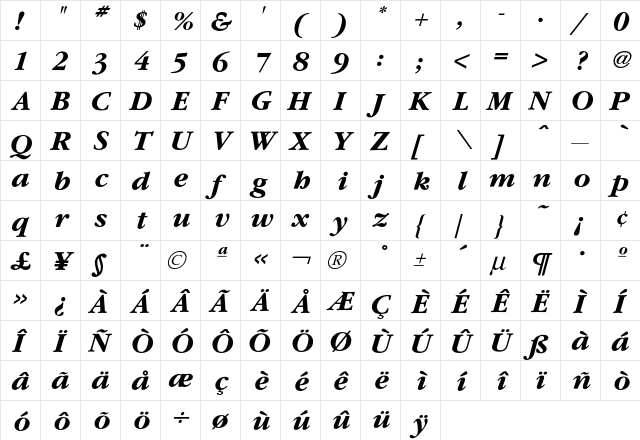
Garamond BoldItalic Font Preview
Design Context for Garamond Typeface
Garamond takes a measured approach to typography — its balanced proportions and neutral character make it a reliable workhorse for both digital and print work. The dynamic lean of this cut emphasises speed and emphasis in any layout. The heavy weight commands attention and anchors typographic hierarchies.
Pro Tip: Try Garamond for annotation and caption copy alongside an upright companion — the contrast in angle creates a dynamic but ordered typographic system.